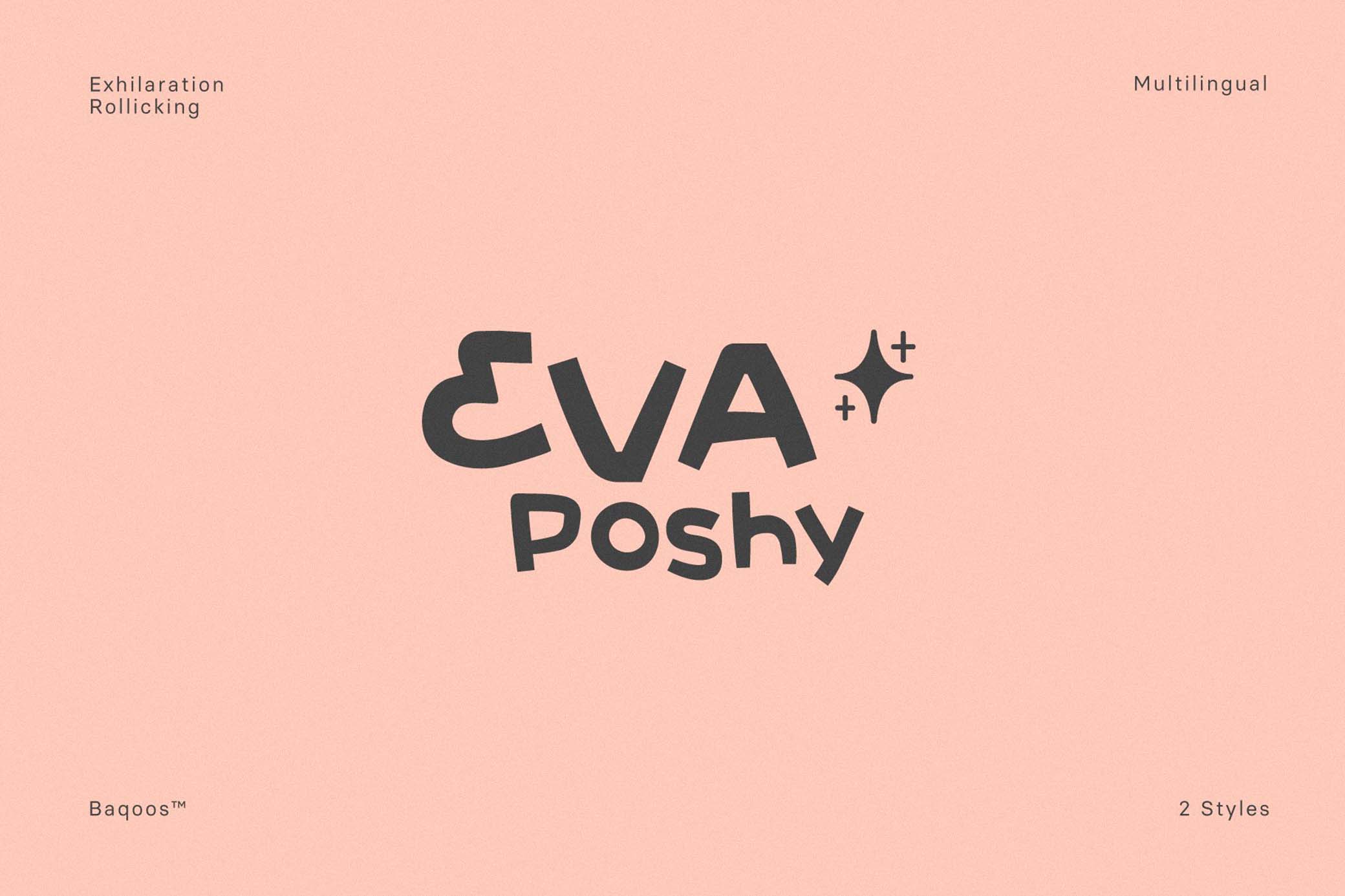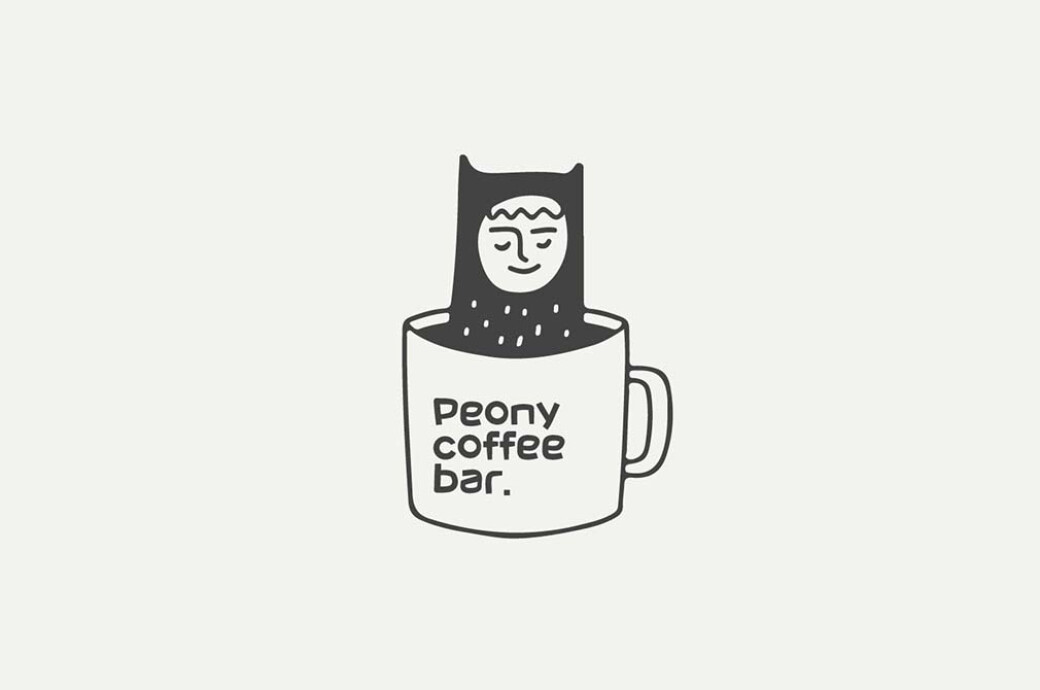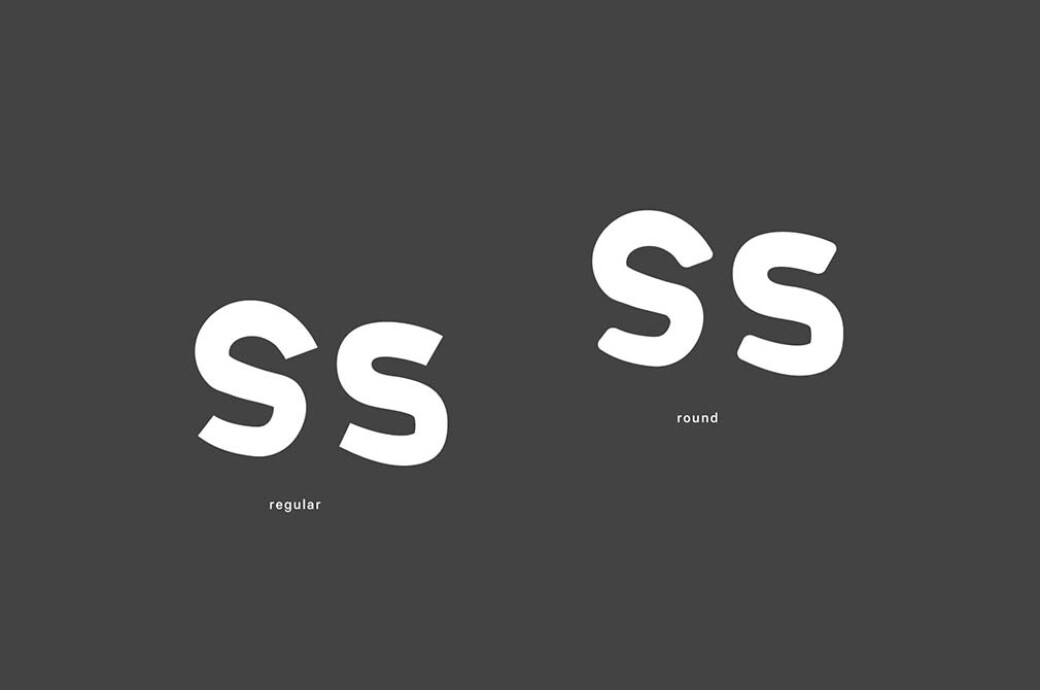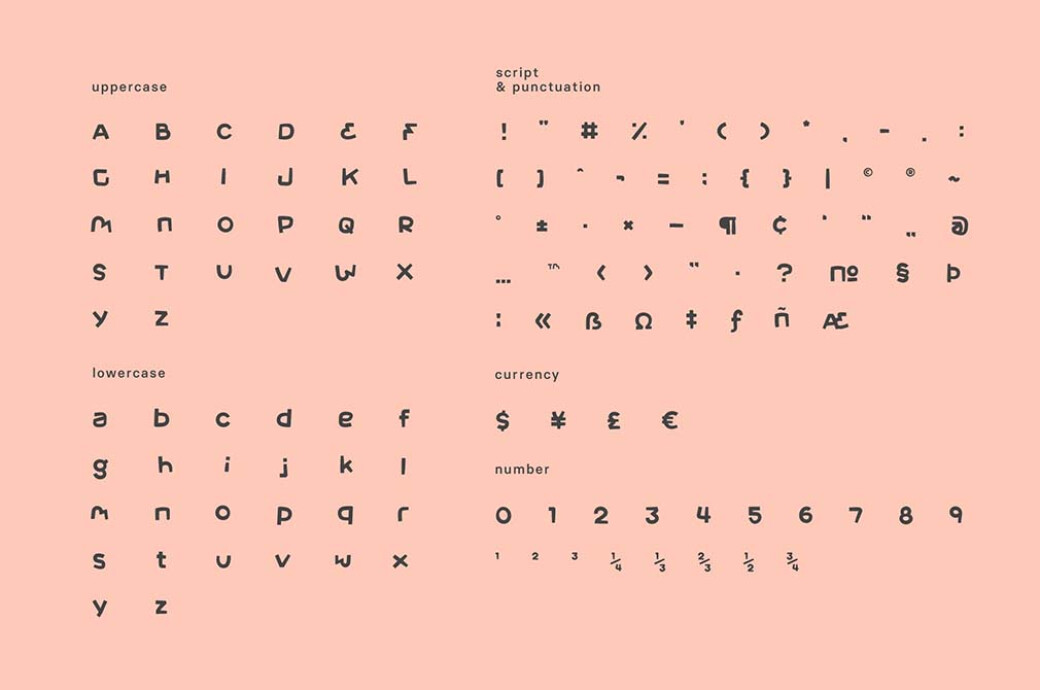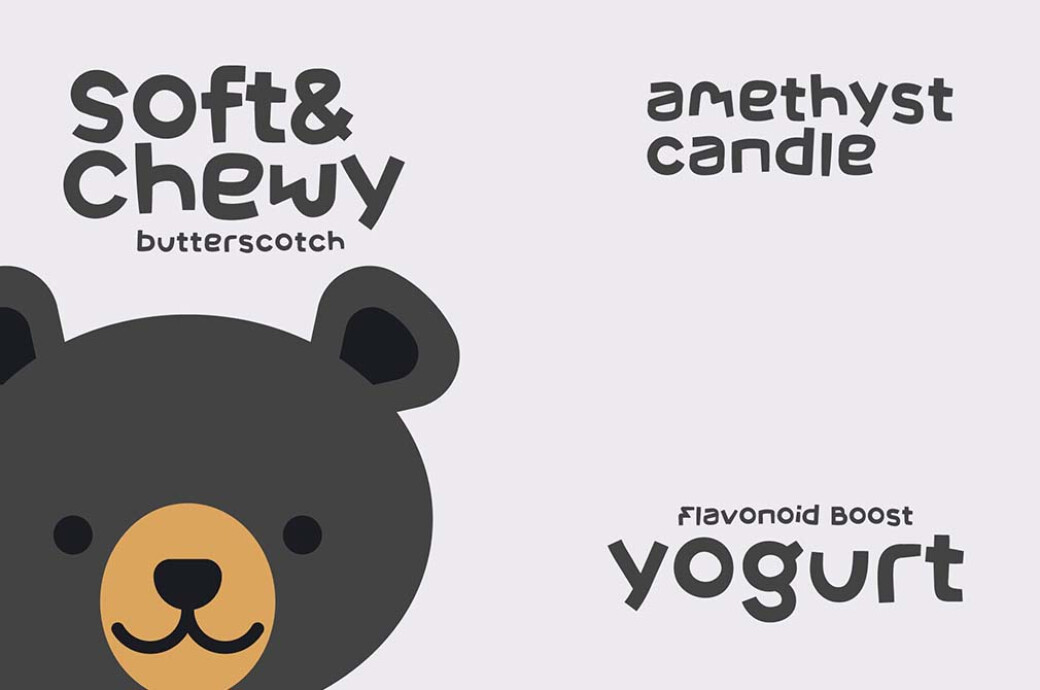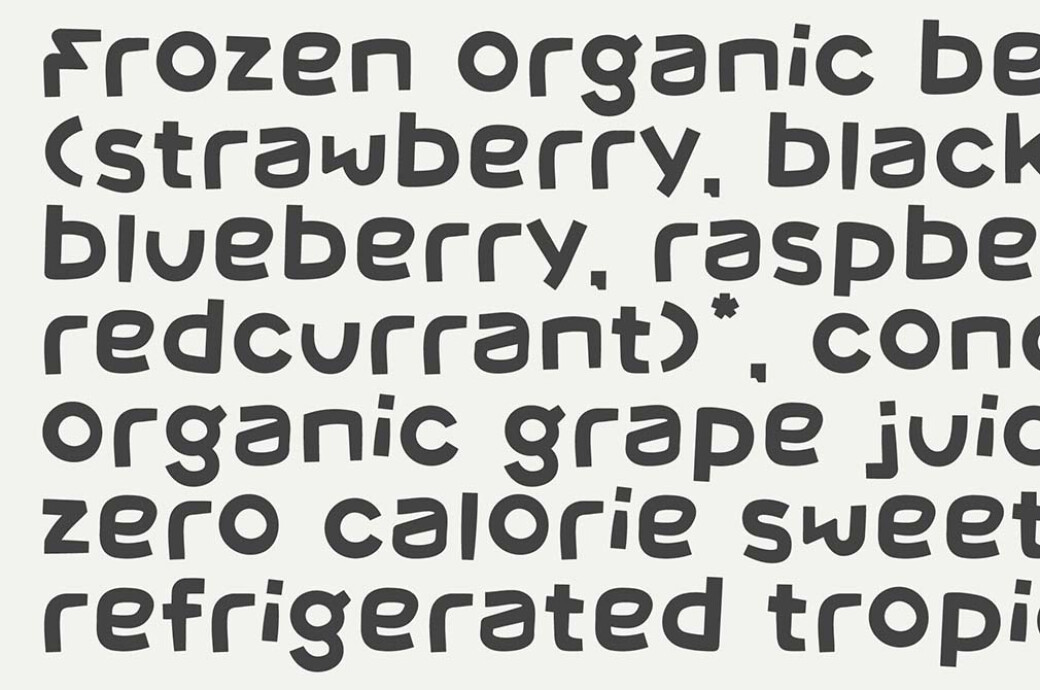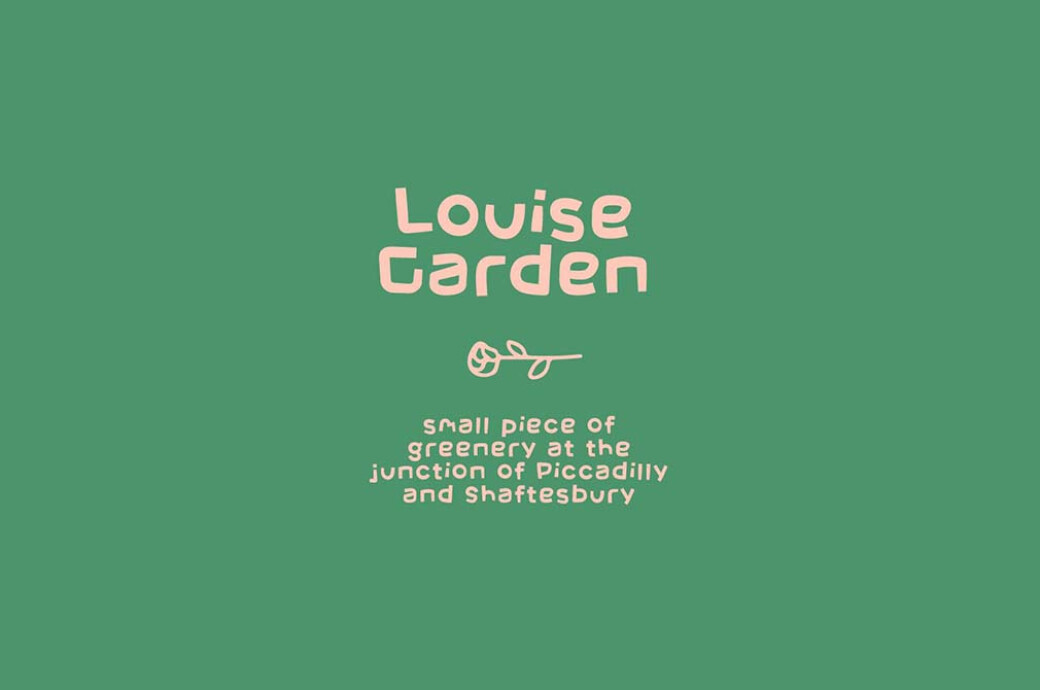
Eva Poshy Font
It gets boring when you are stuck in the chain of similar designs and diluting them with this playful font may become a remedy for the melancholy mood!Set a light vibe to your designs and trust us, it will cheer you up, too! Eva Poshy is a font with bouncy letters, that will be perfect for food packaging, children's products and other works with an easy-going atmosphere. The typeface includes upper and lowercase characters, numbers, punctuation, and symbols: combine them in any text you need!This resource is created, and fully compatible with Adobe Photoshop. For the best experience, we recommend to use the latest Creative Cloud version of the app.